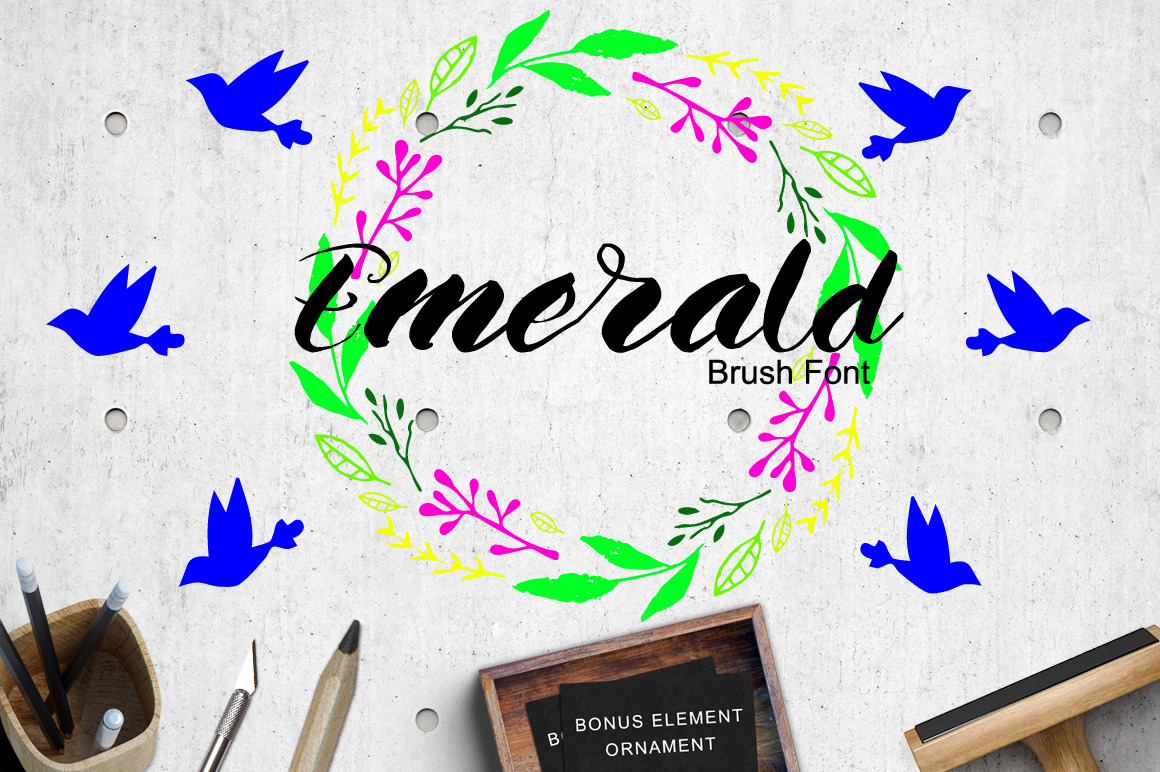
Emerald Brush Font
Introducing Emerald Brush Font!
Emerald Brush Font is a hand brushed typeface, with authentic tell-tale dry brush imperfections, and a very bouncy baseline :), and a super handy set of 23 bonus ornaments floral
Emerald Brush Font has a large variety of alternate characters ,allowing you to make each word look completely unique to the next! Ligatures are also included also - to bring true authenticity to your design.